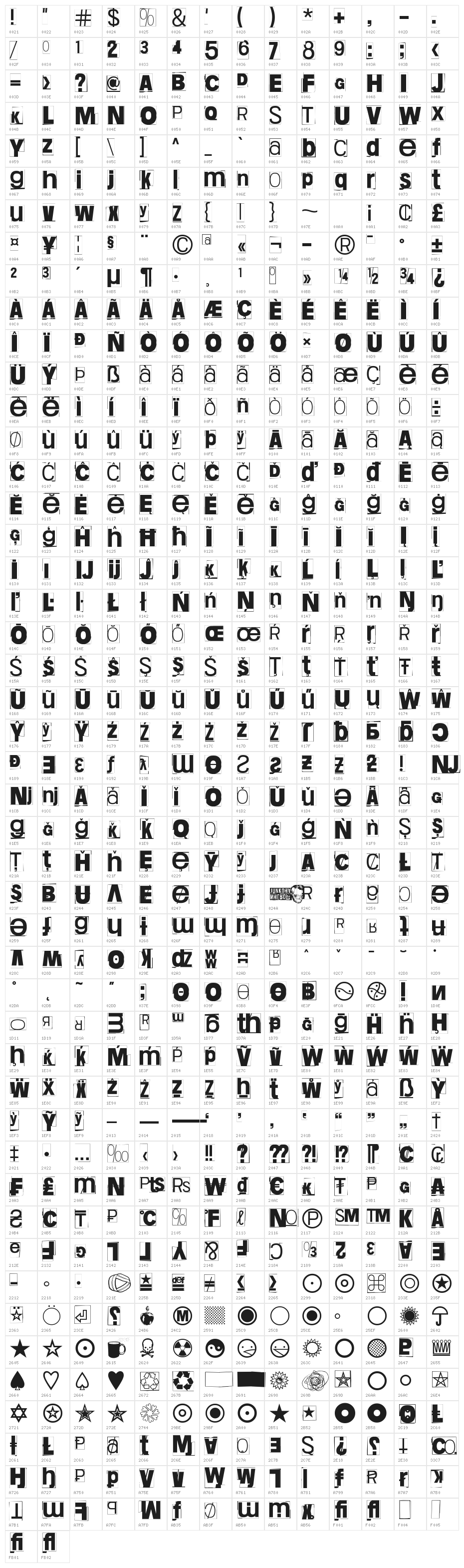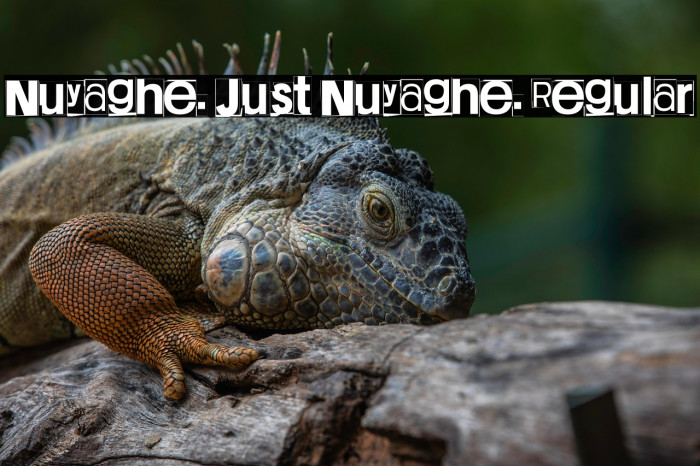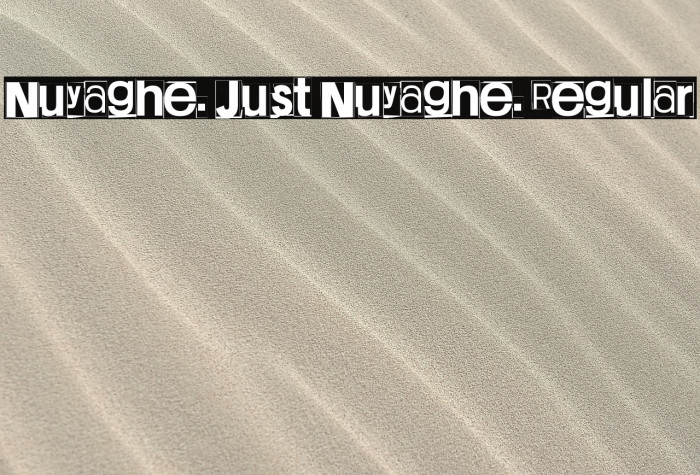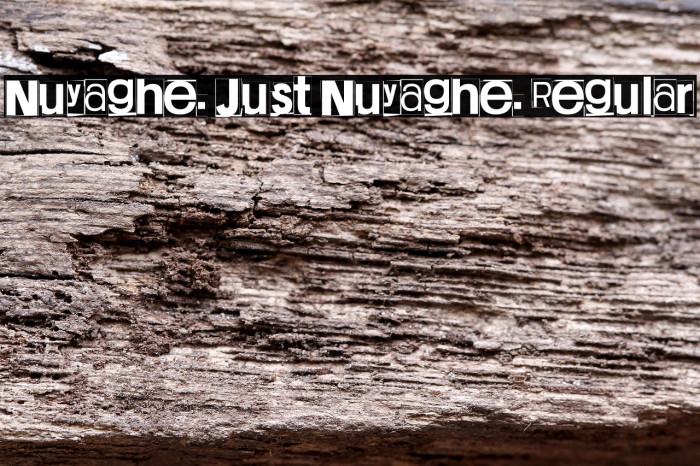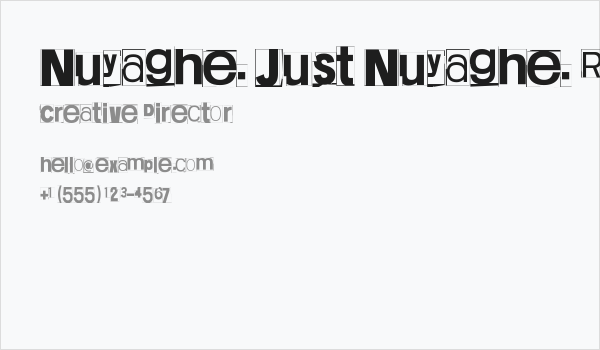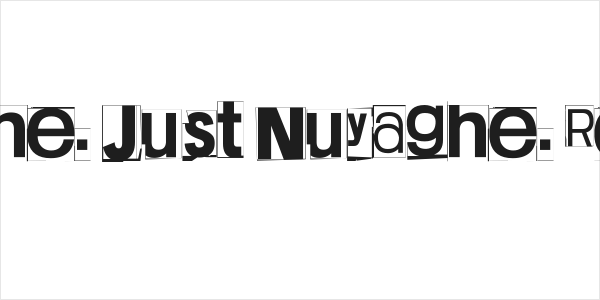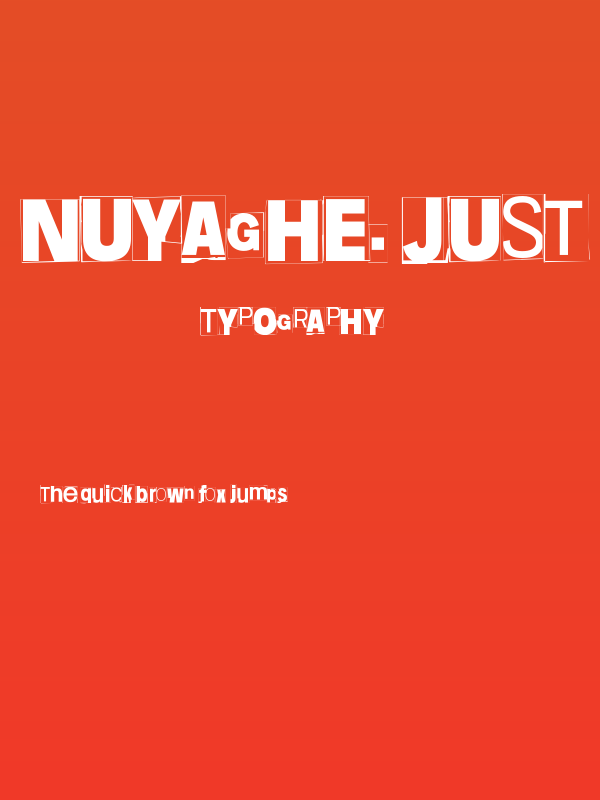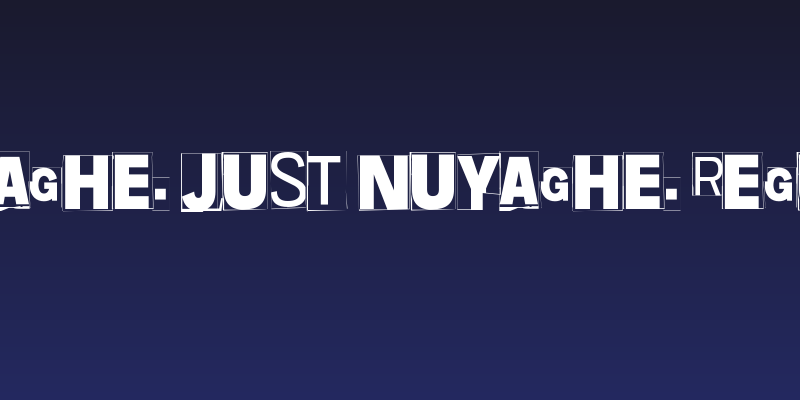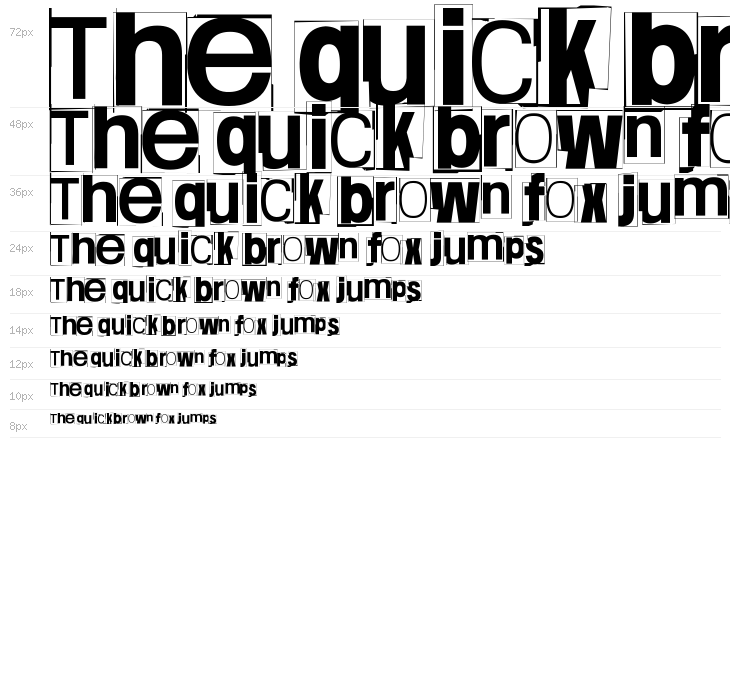
Nuyaghe. Just Nuyaghe. Regular Font
Nuyaghe. Just Nuyaghe. Regular Description
This font features a bold, impactful style with a unique cutout effect that gives each character a distinct, layered appearance. The letters are uppercase and lowercase, with numerals and a variety of special characters. The design is playful yet strong, making it stand out in any context. The boldness of the strokes combined with the irregular shapes of the cutouts creates a dynamic visual rhythm. This font is perfect for projects that require a modern and edgy look, such as posters, album covers, or branding materials. Its high contrast and wide character spacing ensure readability while maintaining its artistic flair.
| Proposed Projects | Ideal for posters, album covers, branding materials, and any project needing a bold, artistic touch. |